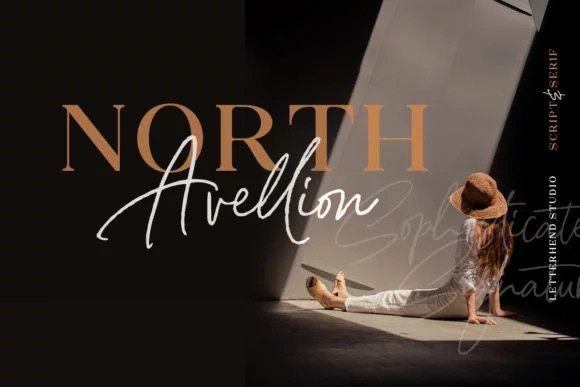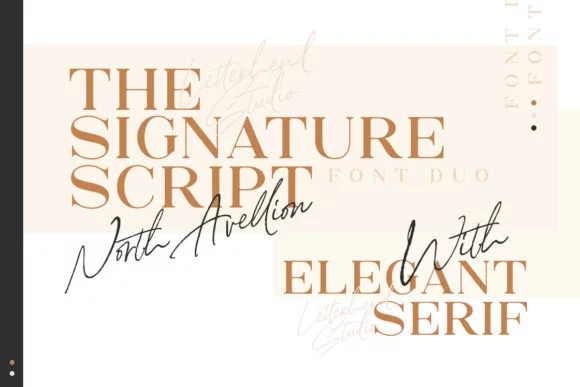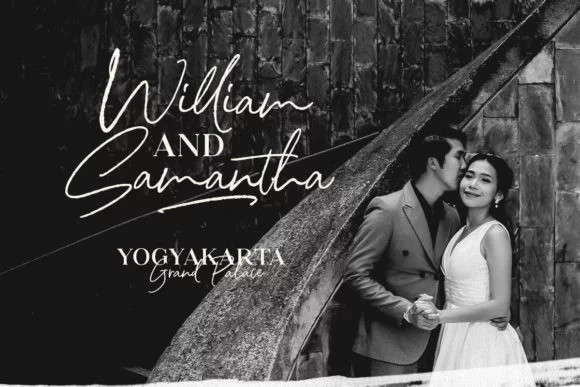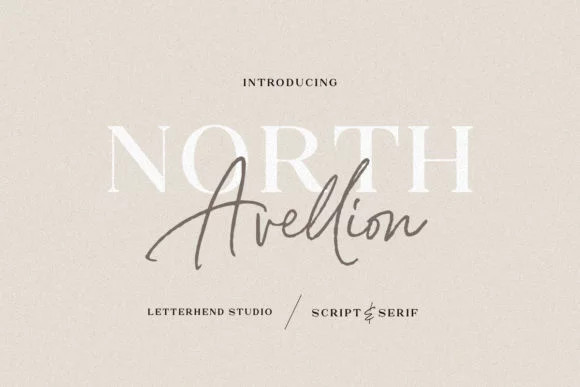
North Avellion Font Duo
Hello friend. This a carefully crafted and perfectly balanced set of elegant serif and realistic script typefaces. Get stylish with Distinct Style, a fashionable and contemporary pair of signature & sans fonts designed to perfectly compliment one another. Introducing North Avellion Handwritten & Serif Font. It’s a stunning font duo that brings together two truly unique and sweet fonts. Give your designs an authentic handcrafted feel. It’s perfectly suited to signature, stationery, logo, typography quotes, magazine or book cover, website header, clothing, branding, packaging design and more. Included Ligatures.